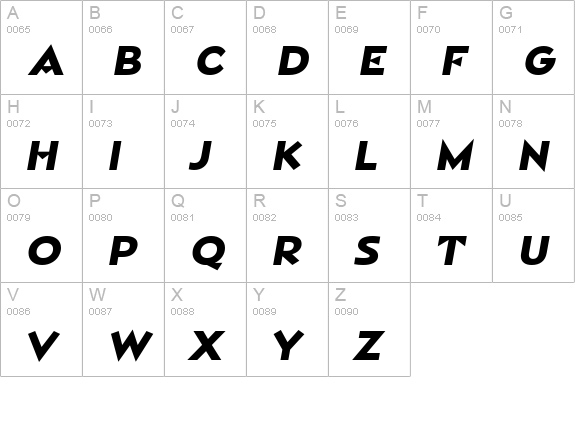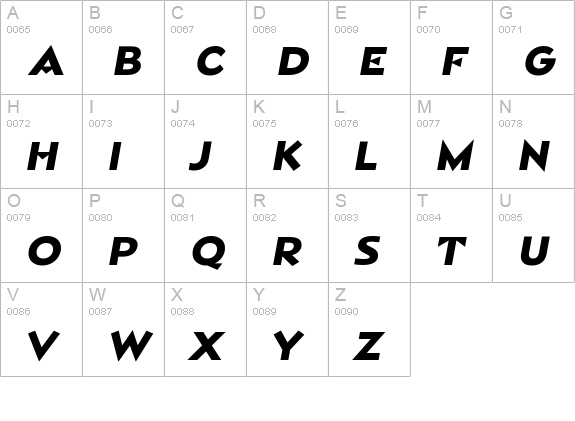
Napa Heavy SF Bold Italic is a heavy, high-impact, italic variant in the Napa typeface family \xE2\x80\x94 well suited to high-impact headlines, posters, and display advertising.
Napa Heavy SF Bold Italic font is a bold and dynamic typeface that exudes strength and sophistication. Its sleek and modern design makes it perfect for a wide range of design projects, from branding to advertising to editorial design. The italicized version of this font adds a touch of elegance and flair, making it stand out from the crowd. What's even better is that Napa Heavy SF Bold Italic font is available for free download at FontsMarket.com. This means you can easily access this high-quality font without any cost, allowing you to elevate your designs without breaking the bank. Don't miss out on the opportunity to add this versatile and eye-catching font to your collection today!